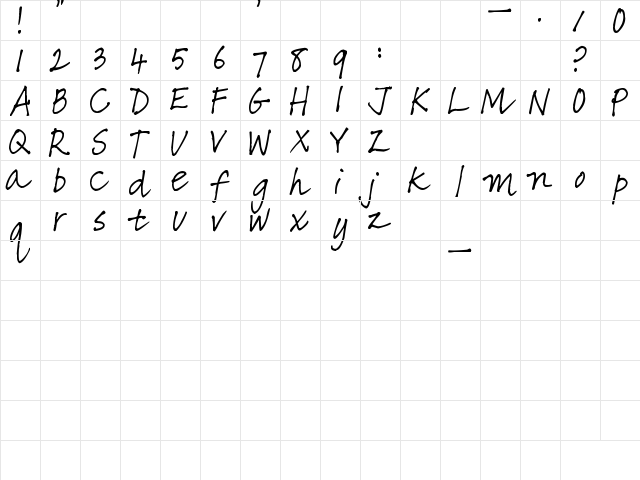
Pea Girly Girls Print Regular
Design Context for Pea Girly Girls Print Typeface
Pea Girly Girls Print offers clean, dependable letterforms without strong stylistic allegiance, making it a practical choice for designers who need flexibility.